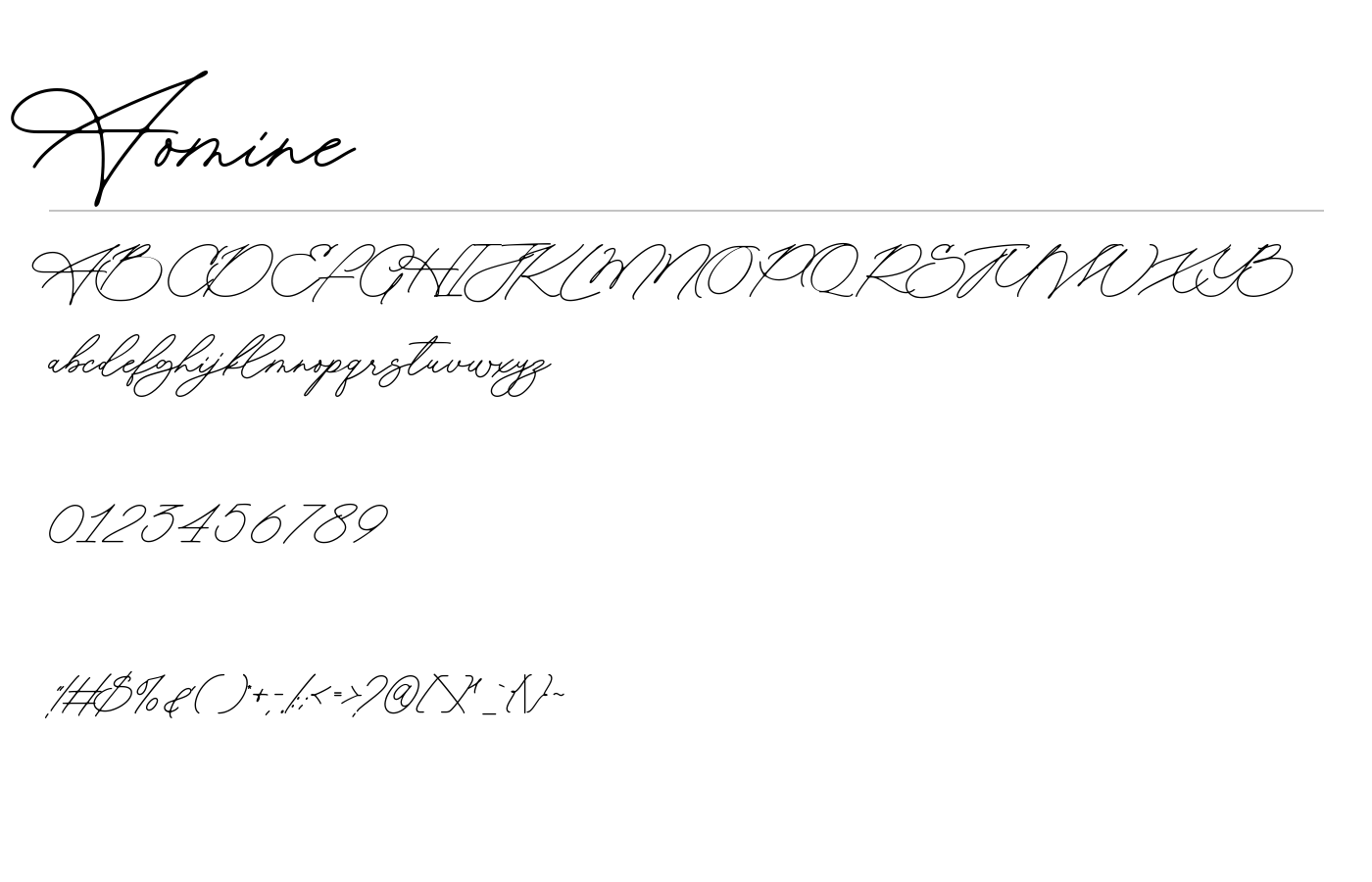
Aomine is an elegant, delicate script font featuring thin, flowing strokes that mimic natural handwriting with graceful loops and curls. Its light weight and refined style make it perfect for sophisticated branding, invitations, and editorial use where a touch of class and personality is desired. This font works well in designs that aim to convey elegance, romance, or a personal touch without overwhelming the viewer.
Aomine Font
About Aomine Font
| Designer | Zain Fahroni |